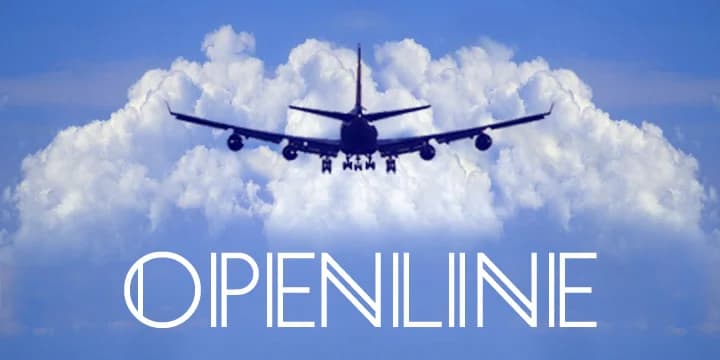
The distinctive hollow letterforms of this typeface let the background show through, creating visual breathing room while maintaining strong structural clarity and presence on the page. Designed by K-Type, Openline channels the geometric precision of Art Deco without leaning into its ornamental excess, instead landing on something fresher and more contemporary in its sensibility. The interplay between the outlined strokes and inner negative spaces gives each letter a strong graphic quality that works equally well at generous display sizes or nested within intricate layered designs.
This decorative inline is particularly effective for upscale event invitations, vintage-inspired branding identity systems, and geometric poster compositions where the letterforms themselves become primary design elements. Luxury cosmetics packaging, gallery and museum announcements, and craft-forward product labels all benefit from the refined modernity Openline brings to display typography. Geometric pattern work and editorial mastheads also showcase the font's structured elegance. Both Regular and Bold weights are included, offering straightforward flexibility in typographic hierarchy without sacrificing the font's essential character.
Openline Font is a decorative font that shines as a display or heading face. Pair it with a clean sans-serif or serif font for body text β the contrast creates a clear hierarchy while the two styles stay balanced and easy to read.
Openline Font
by K-Type